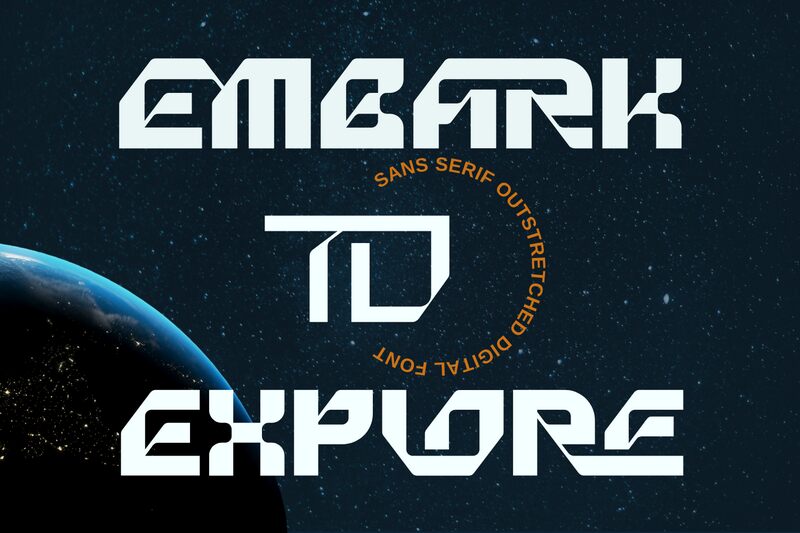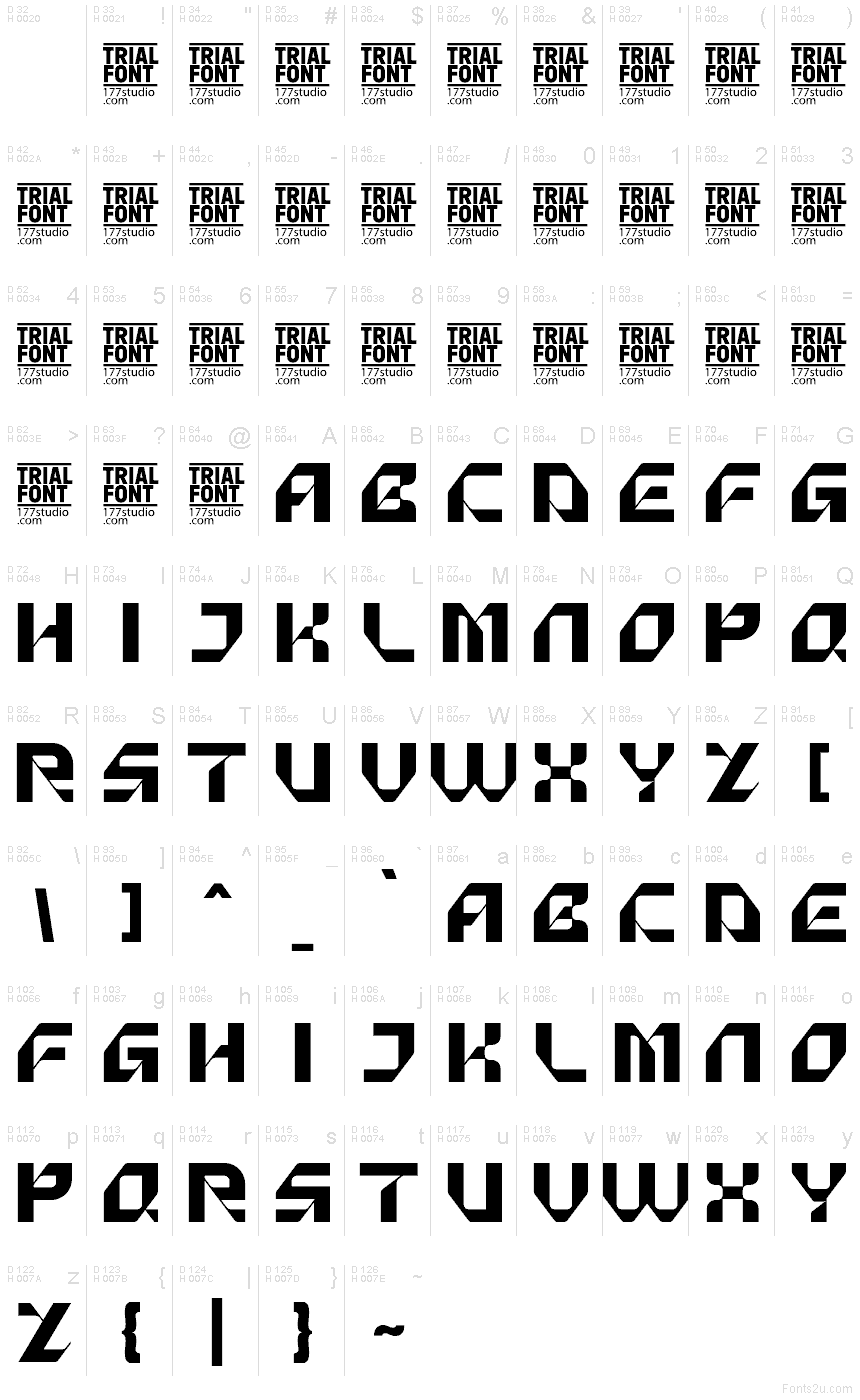
Embark To Explore Demo Medium
Embark To Explore Medium font by 177Studio is a free futuristic display typeface that looks like it was carved from sleek metallic panels. The tight, stepped curves and squared corners create a bold, modular rhythm, as if each letter were part of a sci‑fi control panel. Its maze-like forms lock together into a strong horizontal band, giving logos and titles a crisp, engineered presence that feels both experimental and controlled.
Using Embark To Explore Medium, you can push sci‑fi posters, game titles, tech branding, EDM album covers, esports logos, and YouTube thumbnails into full-on space-age territory. This free font shines at large sizes where its angular cuts and interlocking shapes can breathe; pair it with a clean geometric sans from the Embark To Explore family or a minimal grotesk for supporting text to keep layouts sharp and readable.